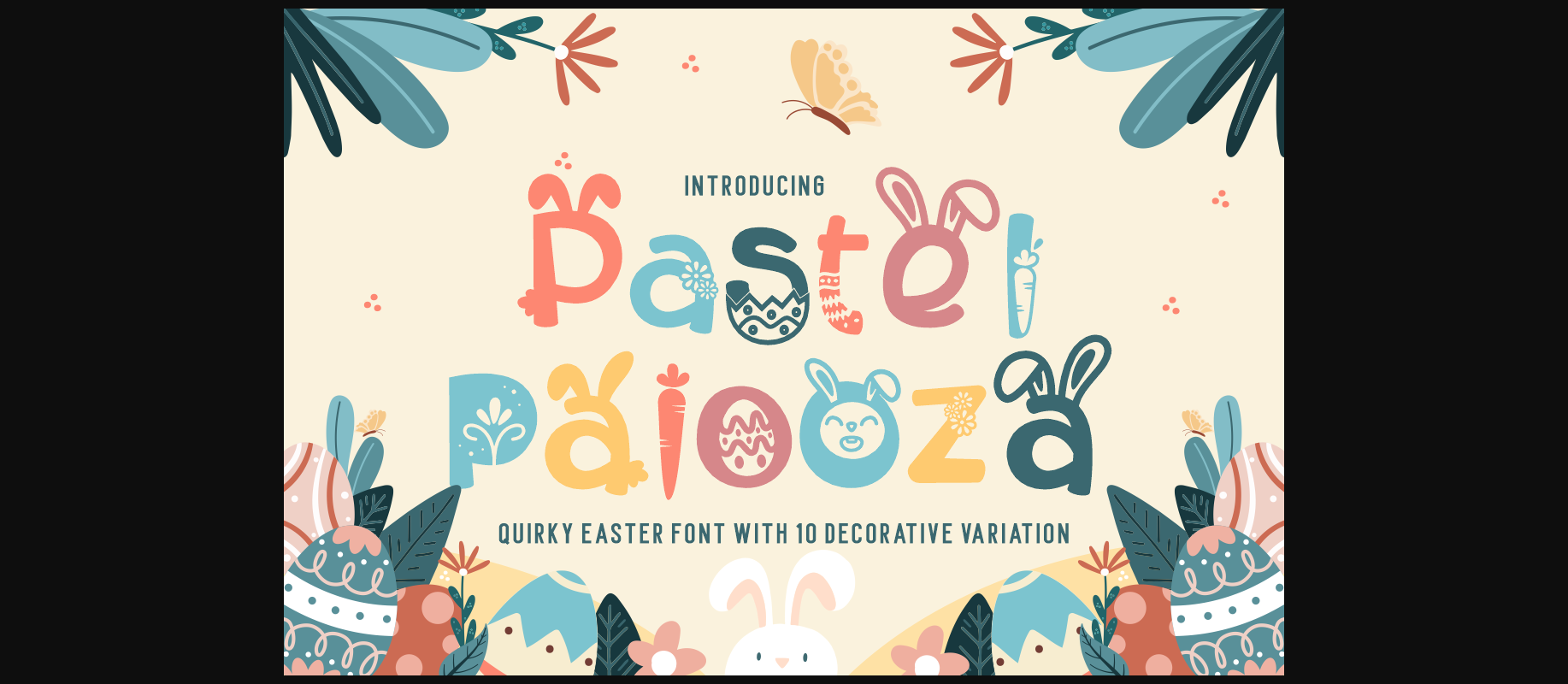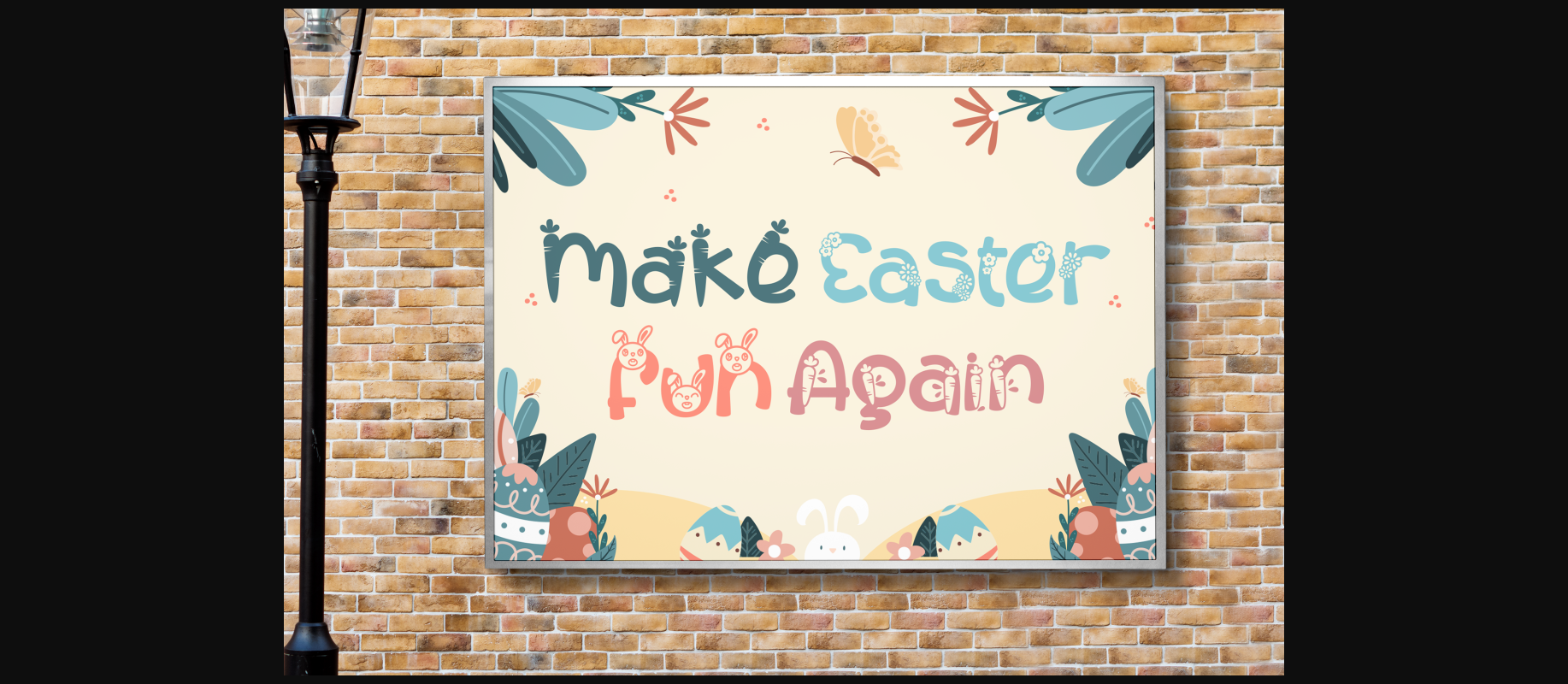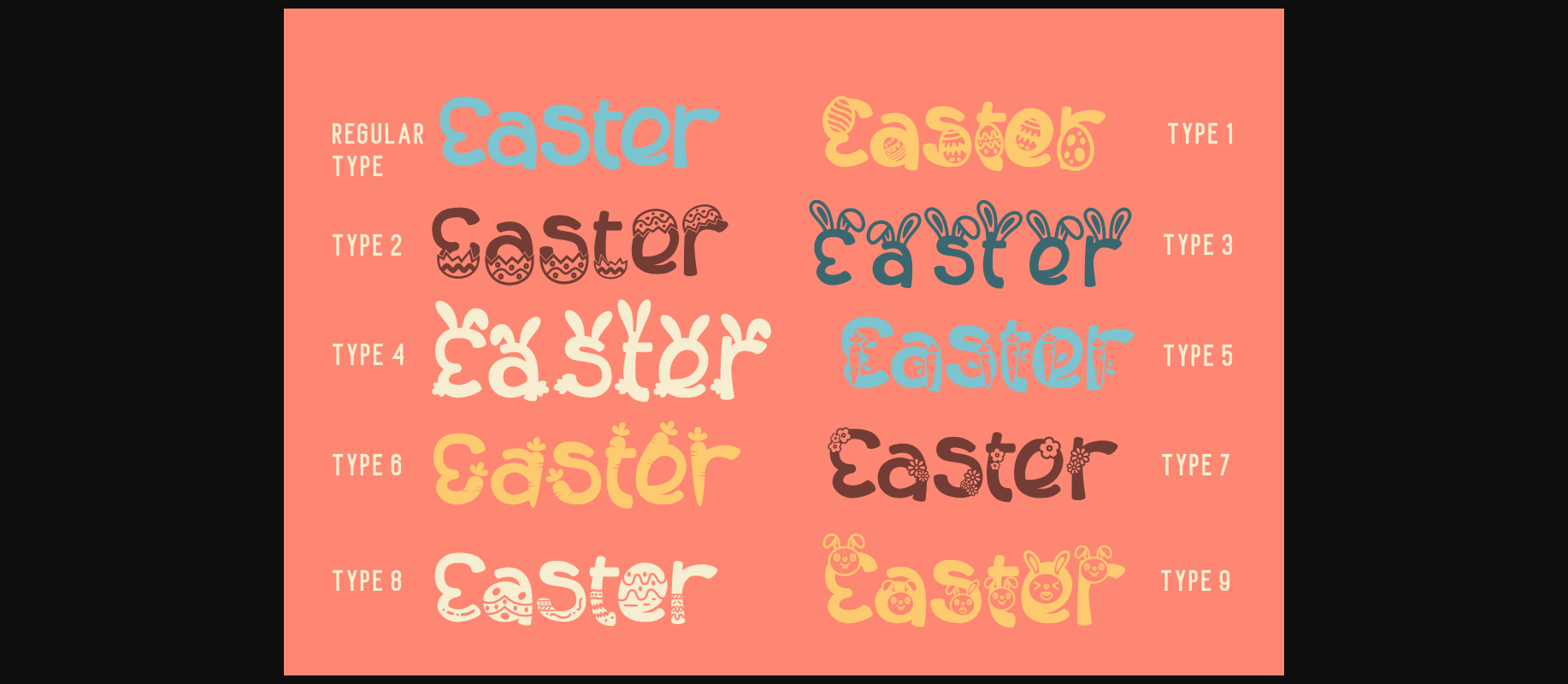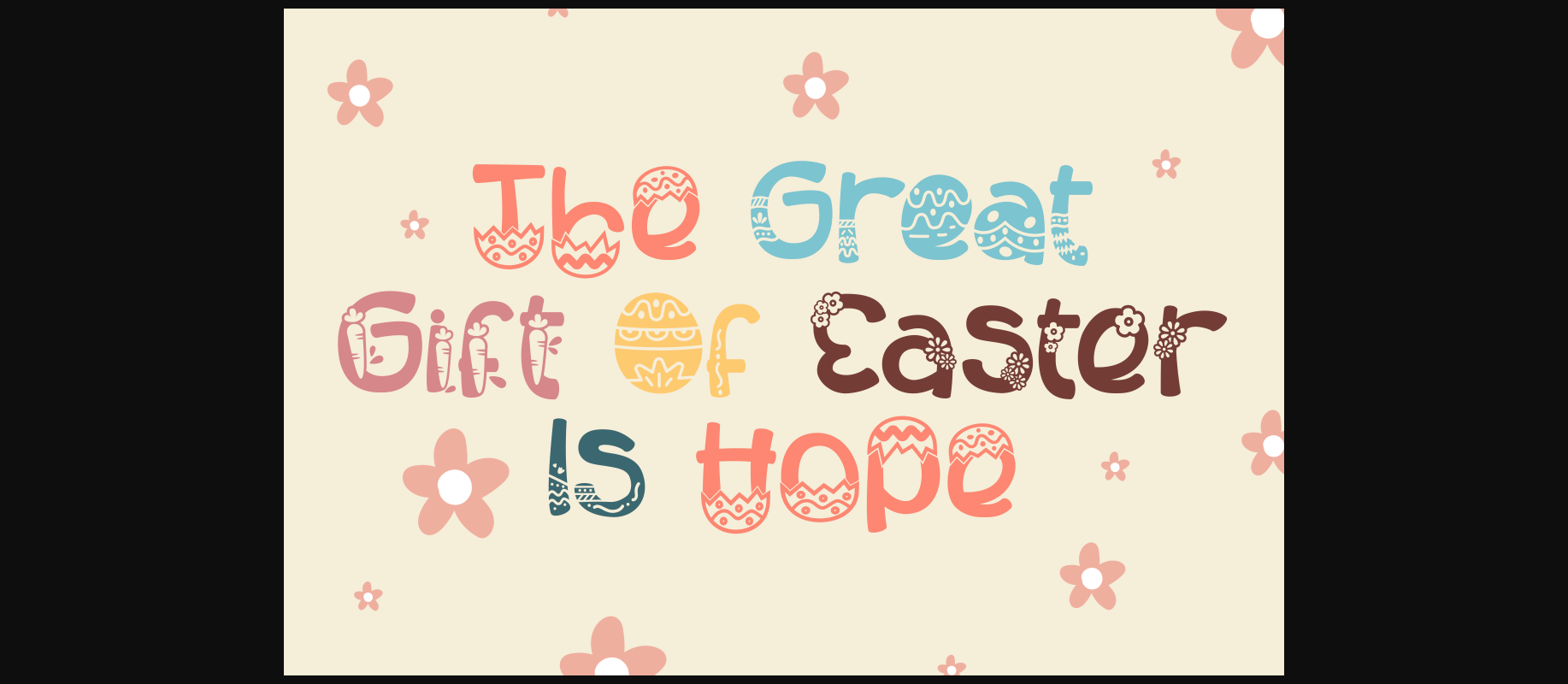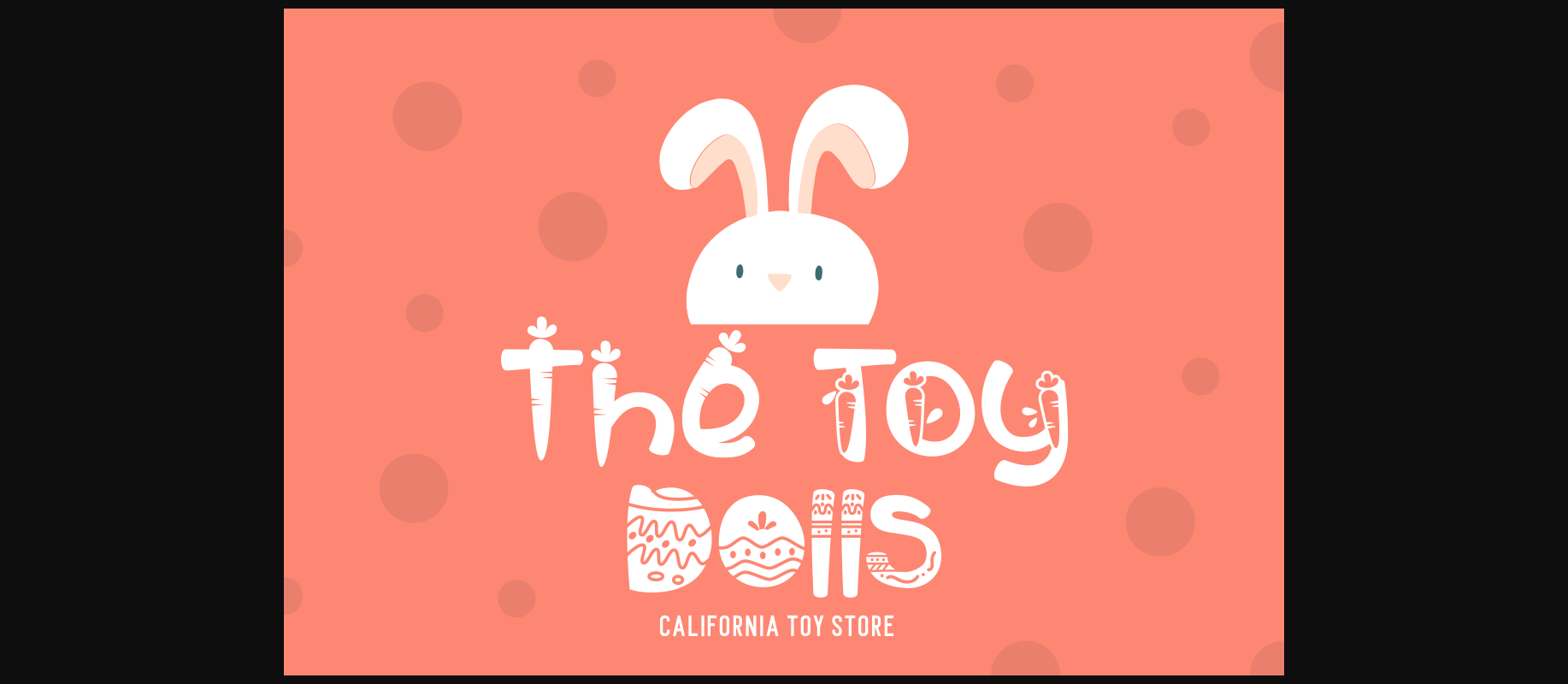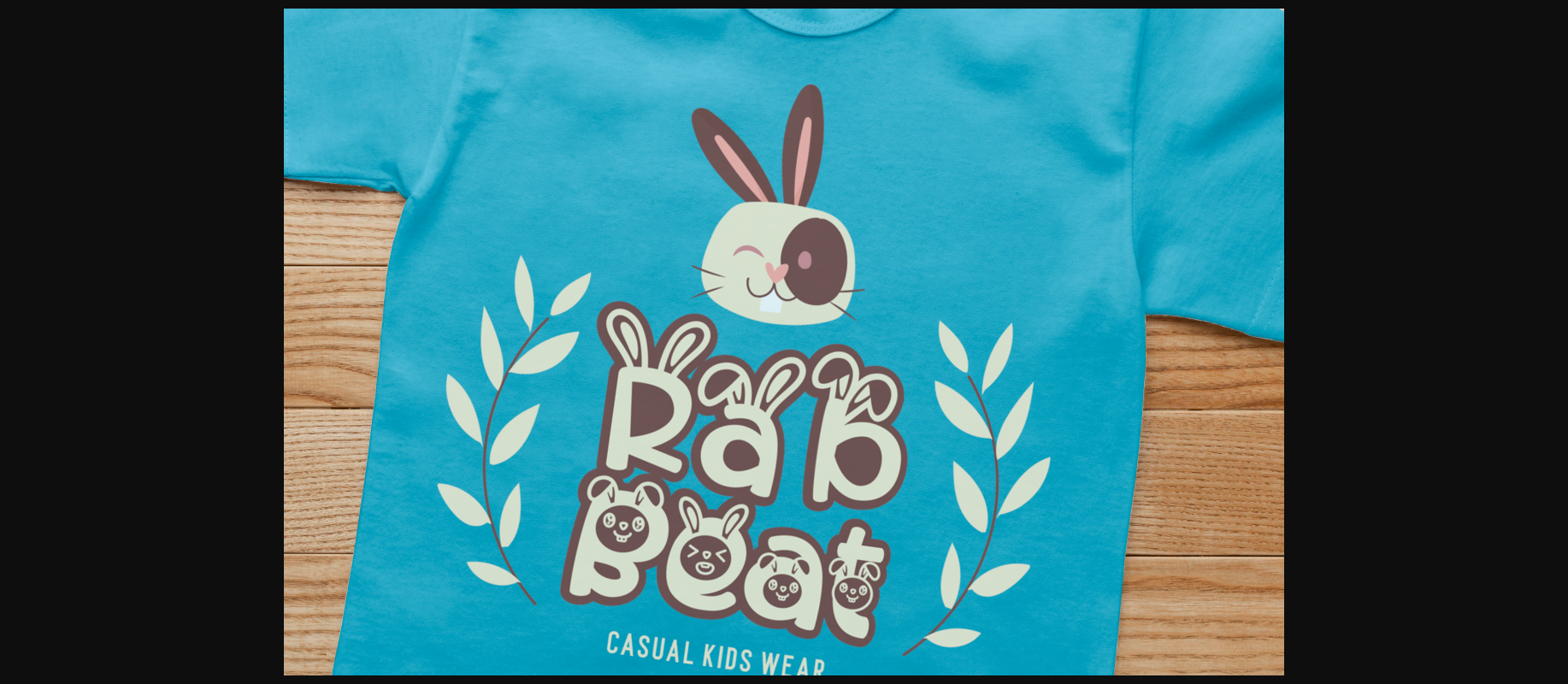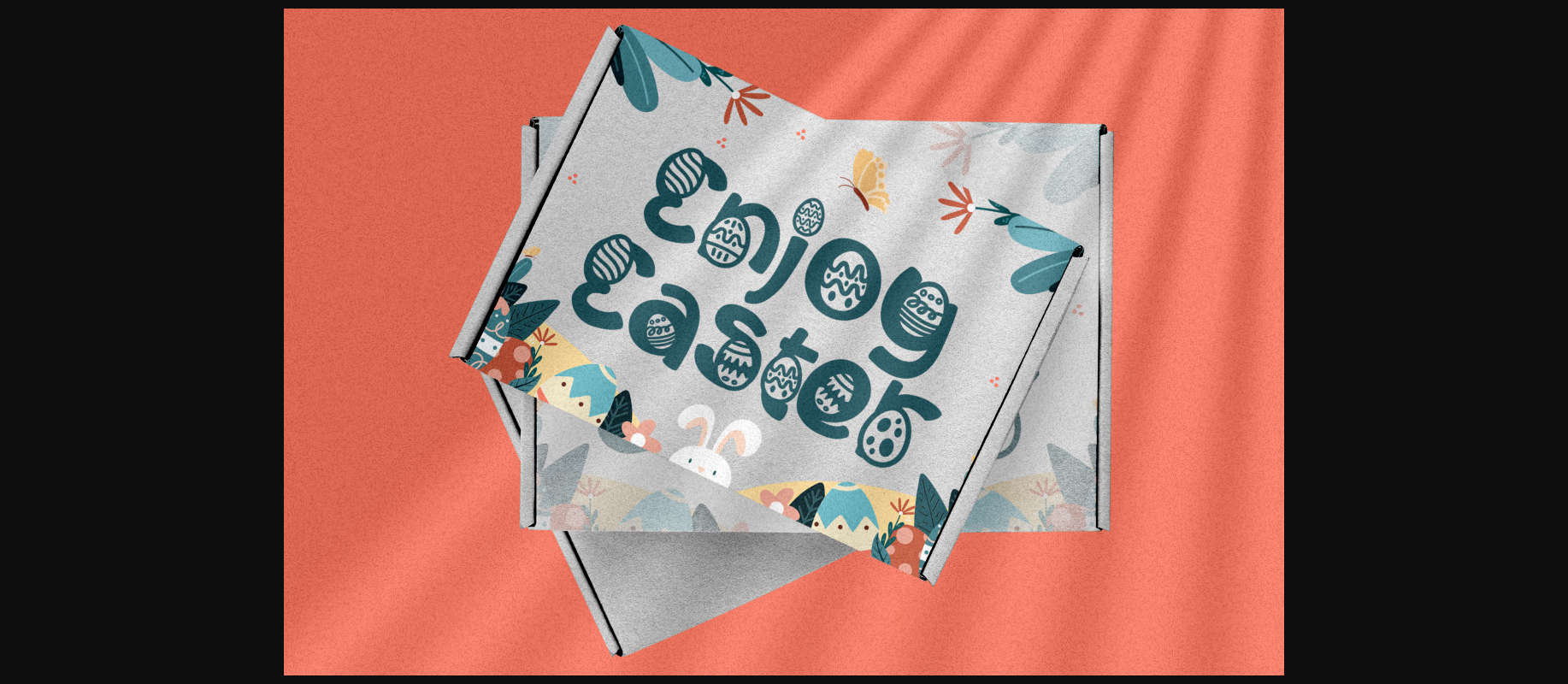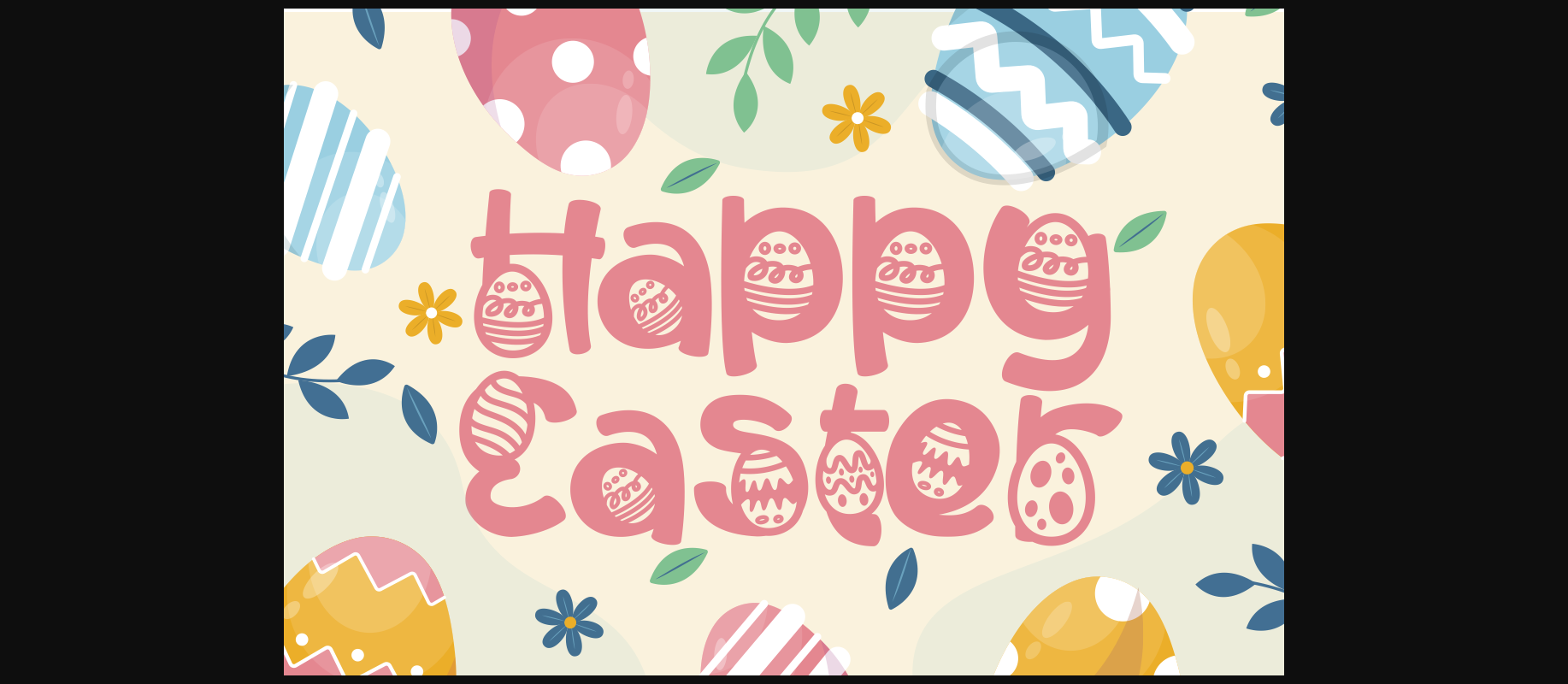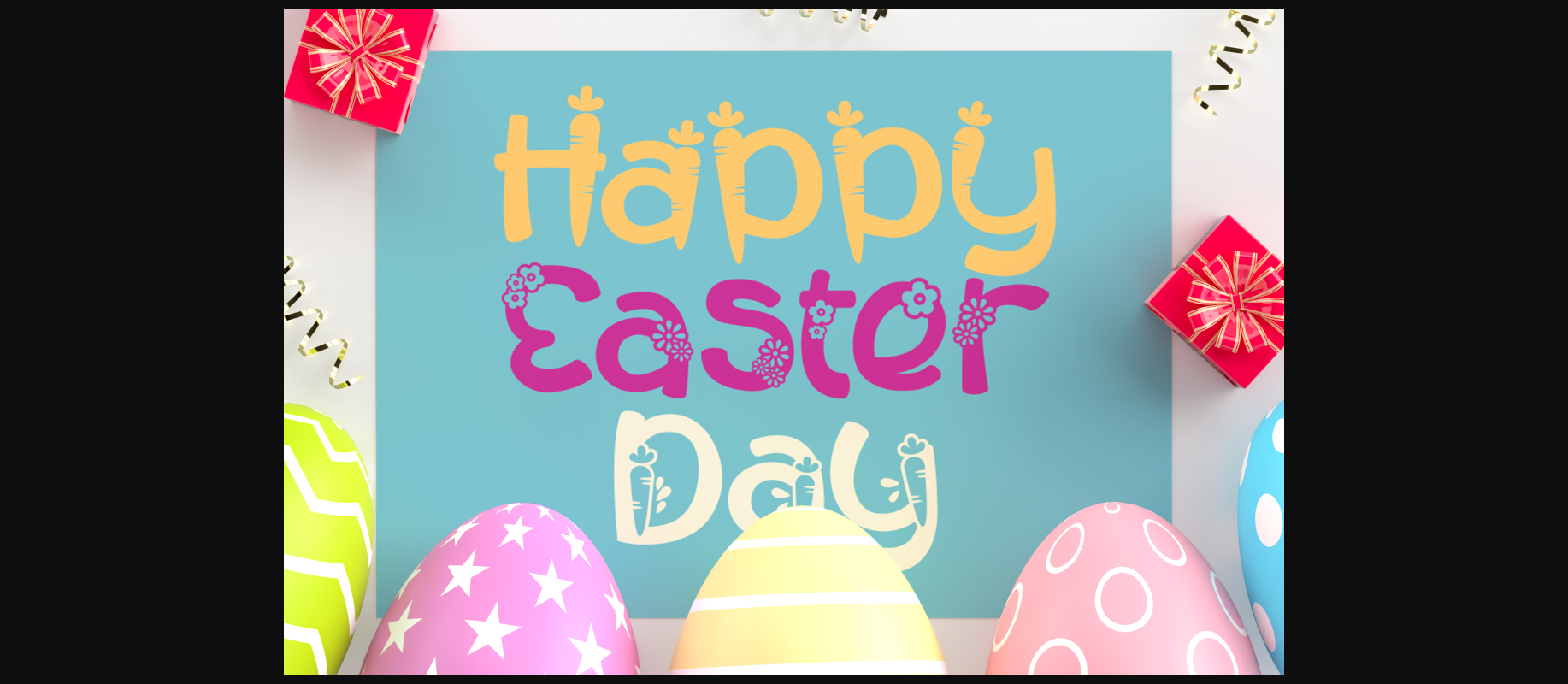
Pastel Palooza Font
About Pastel Palooza Font
Introducing Pastel Palooza – Quirky Easter Display Font, a delightful and playful typeface designed with the joyous spirit of Easter in mind. This fun and decorative font captures the essence of the holiday, making it the perfect choice for Easter-themed projects. Crafted with care, Pastel Palooza features a total of 10 font variations within the typeface, each reflecting the whimsical elements of the season – from eggs and bunnies to flowers and carrots.
Let your creativity shine with Pastel Palooza as it adds a touch of whimsy to your designs. Whether you’re creating logos, organizing children’s events, designing posters, stickers, or packaging, this font brings a vibrant and festive atmosphere to your projects. Embrace the playful charm of Pastel Palooza – Quirky Easter Display Font and watch your designs come to life with the spirit of Easter.